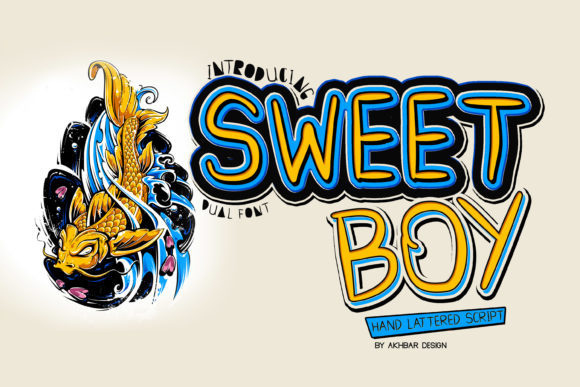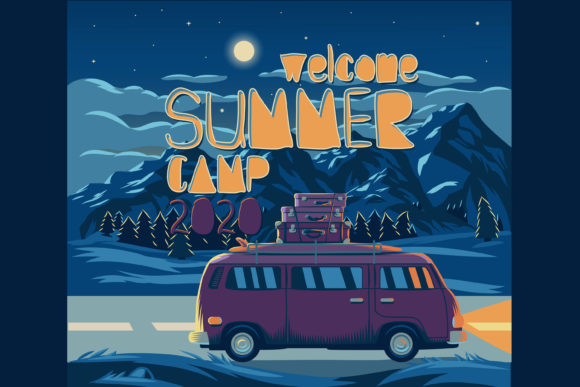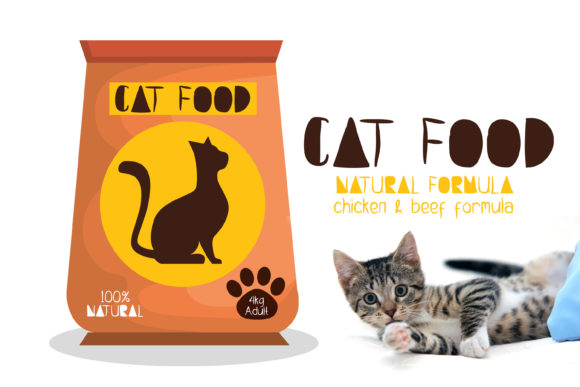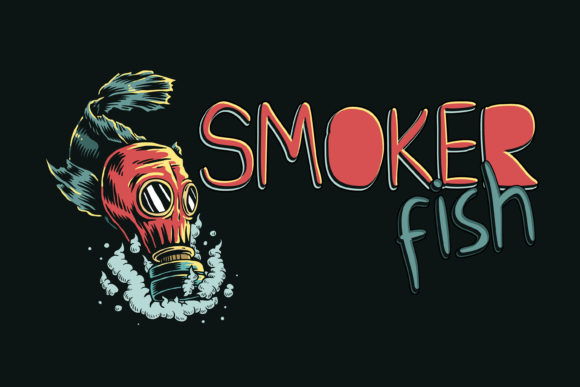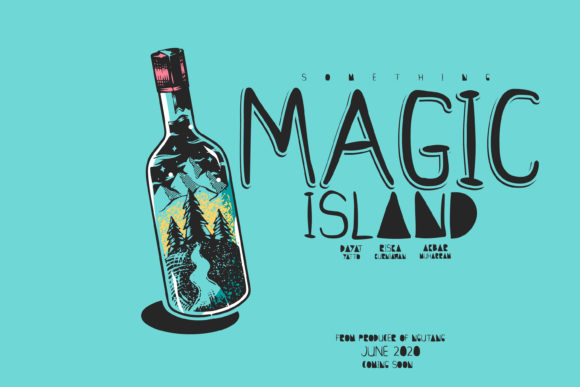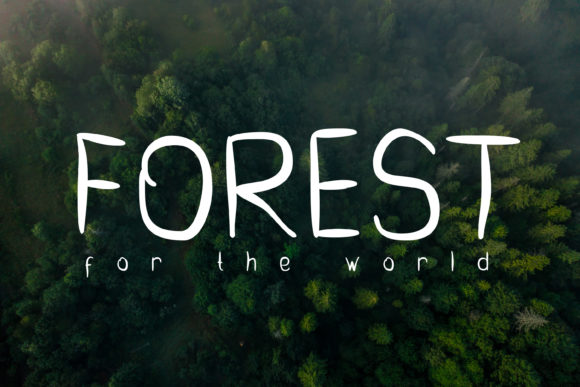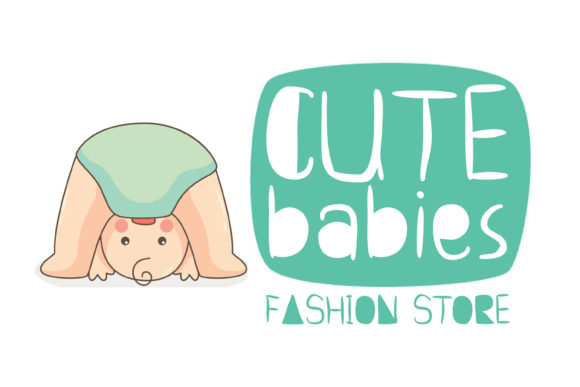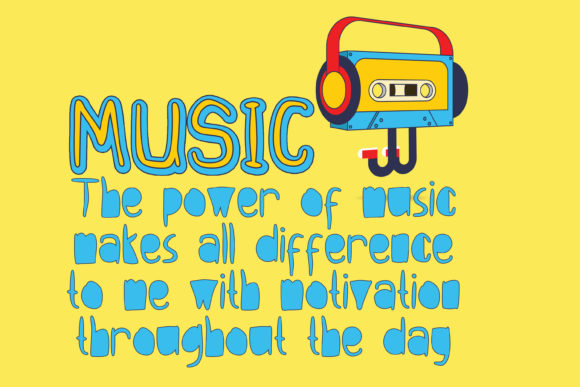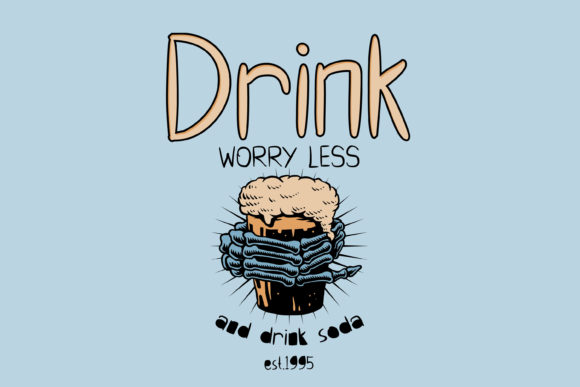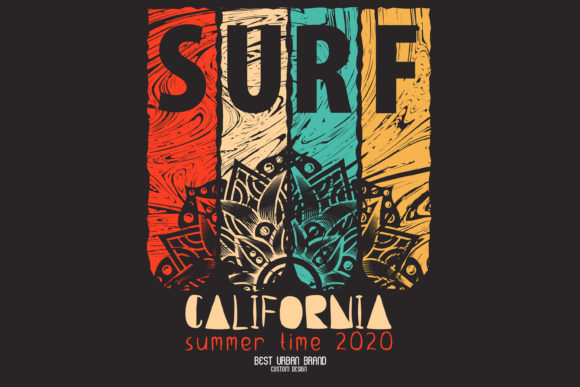
Sweet Boy Font
About Sweet Boy Font
Sweet Boy is a raw and authentic script that radiates charm. Get inspired by its unique style, and turn any design project into an eye-catcher!